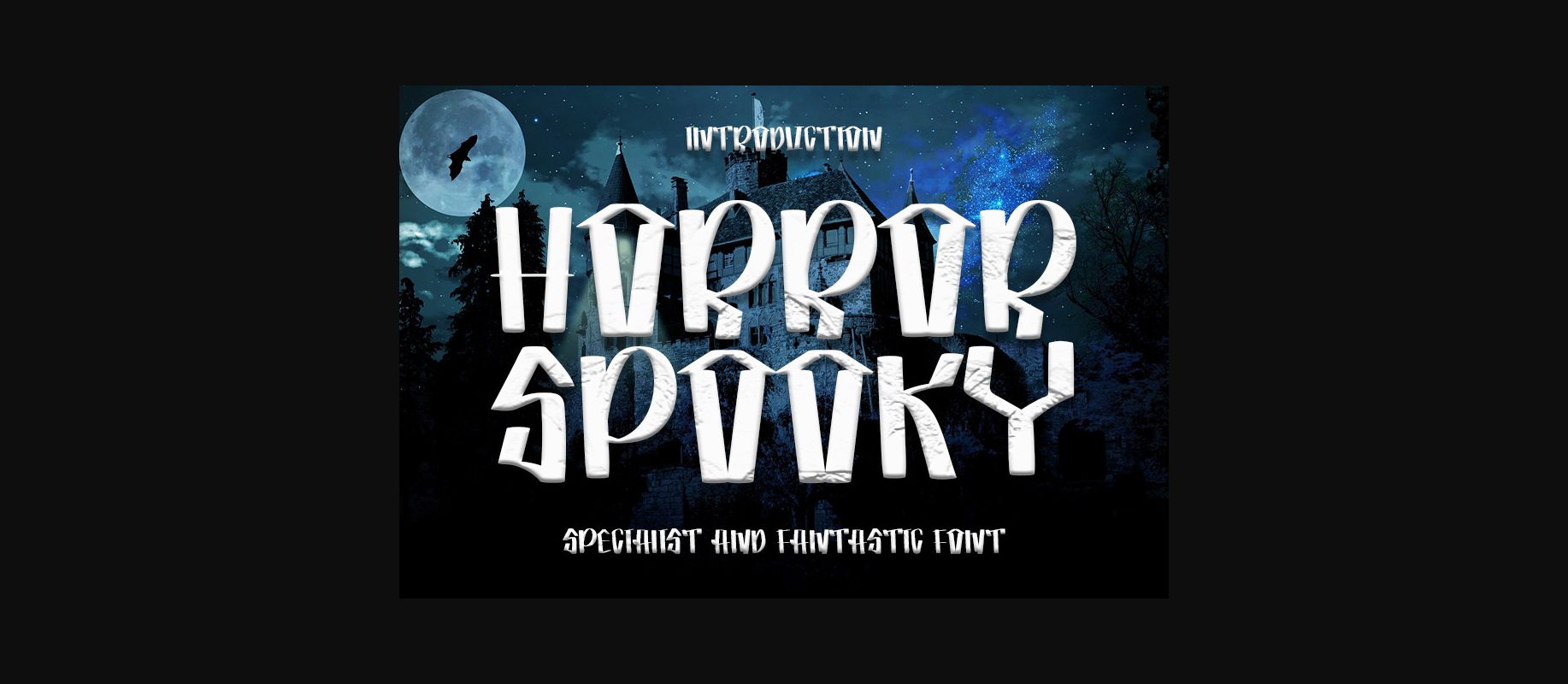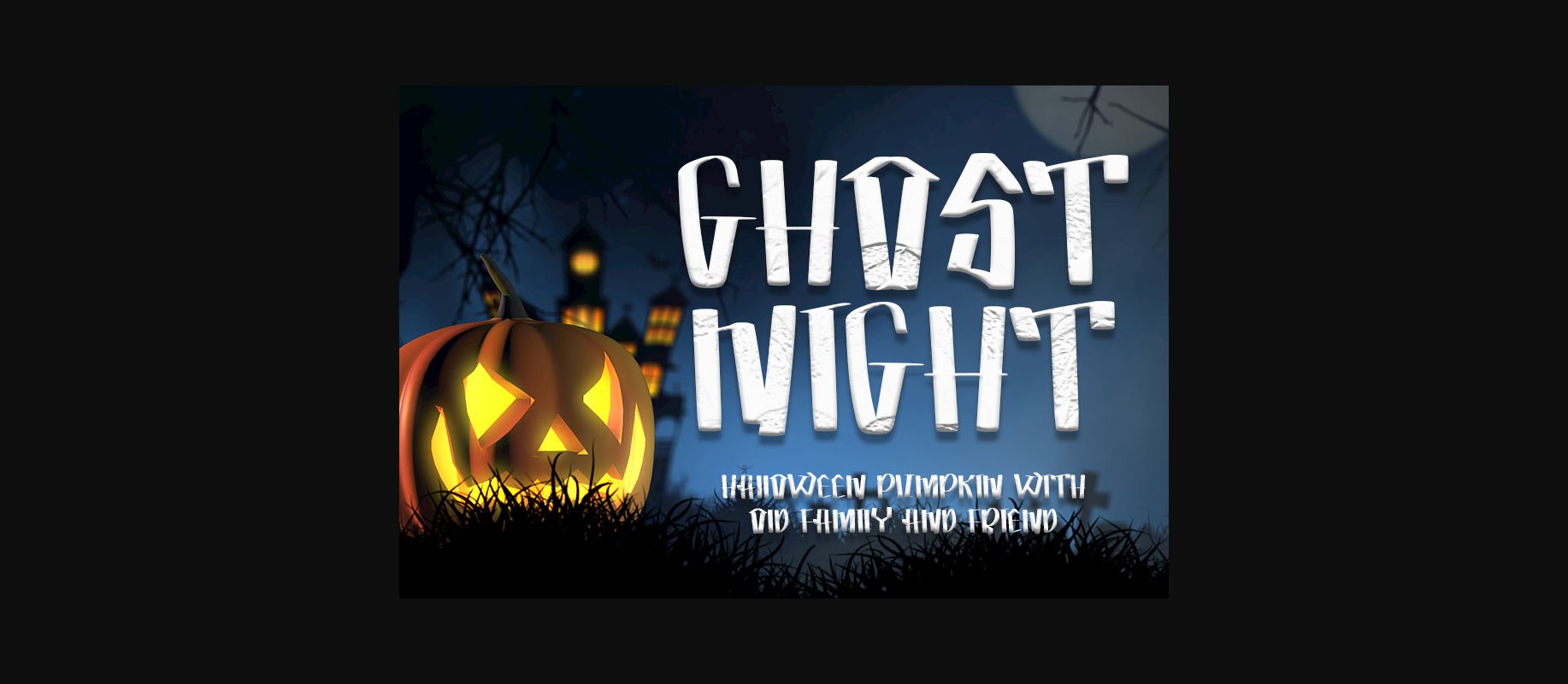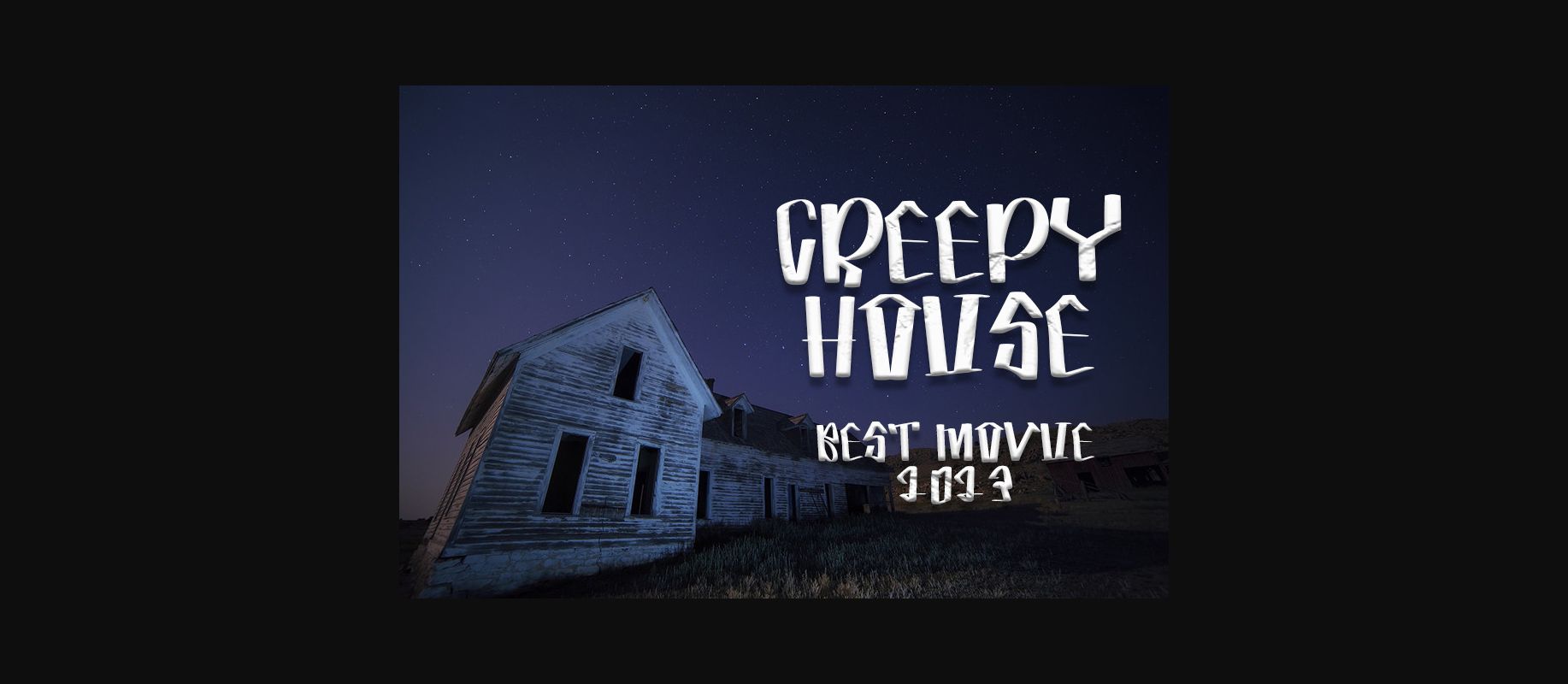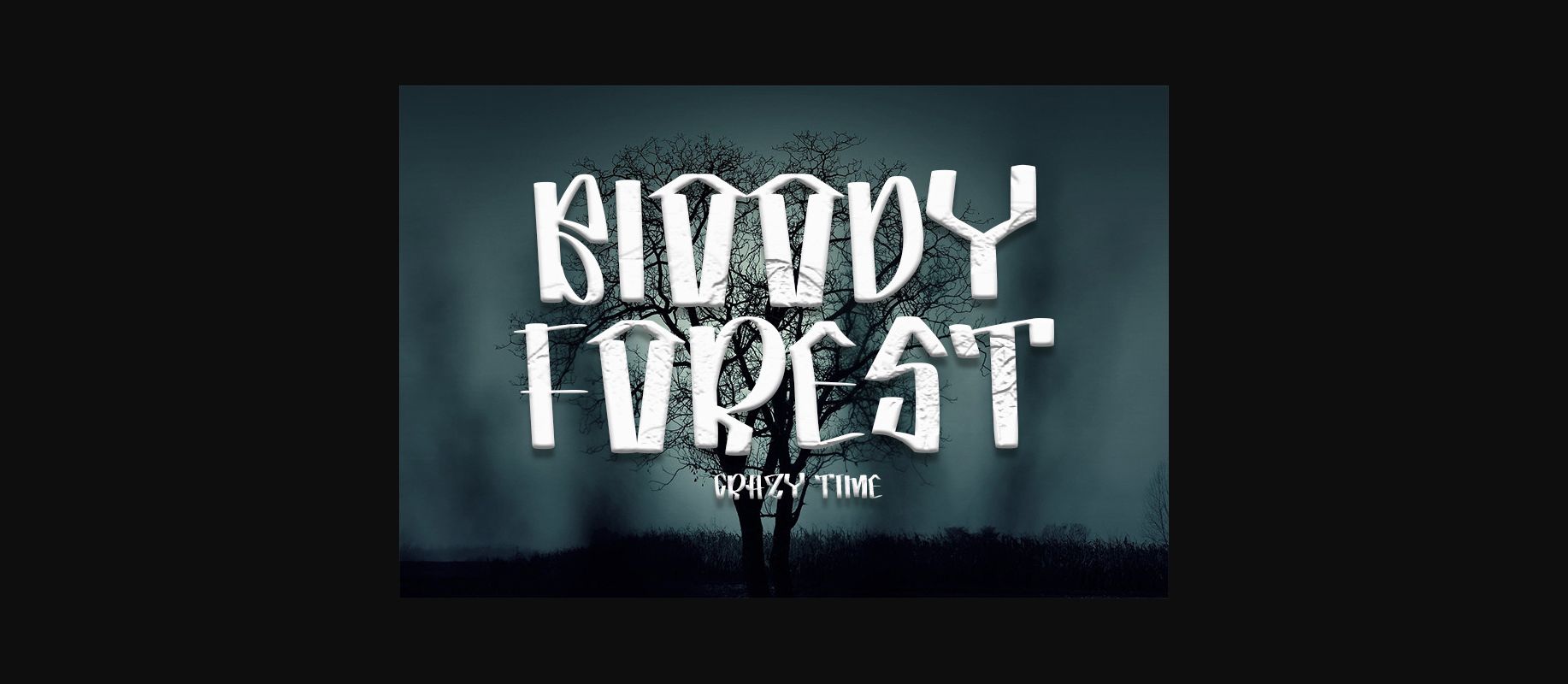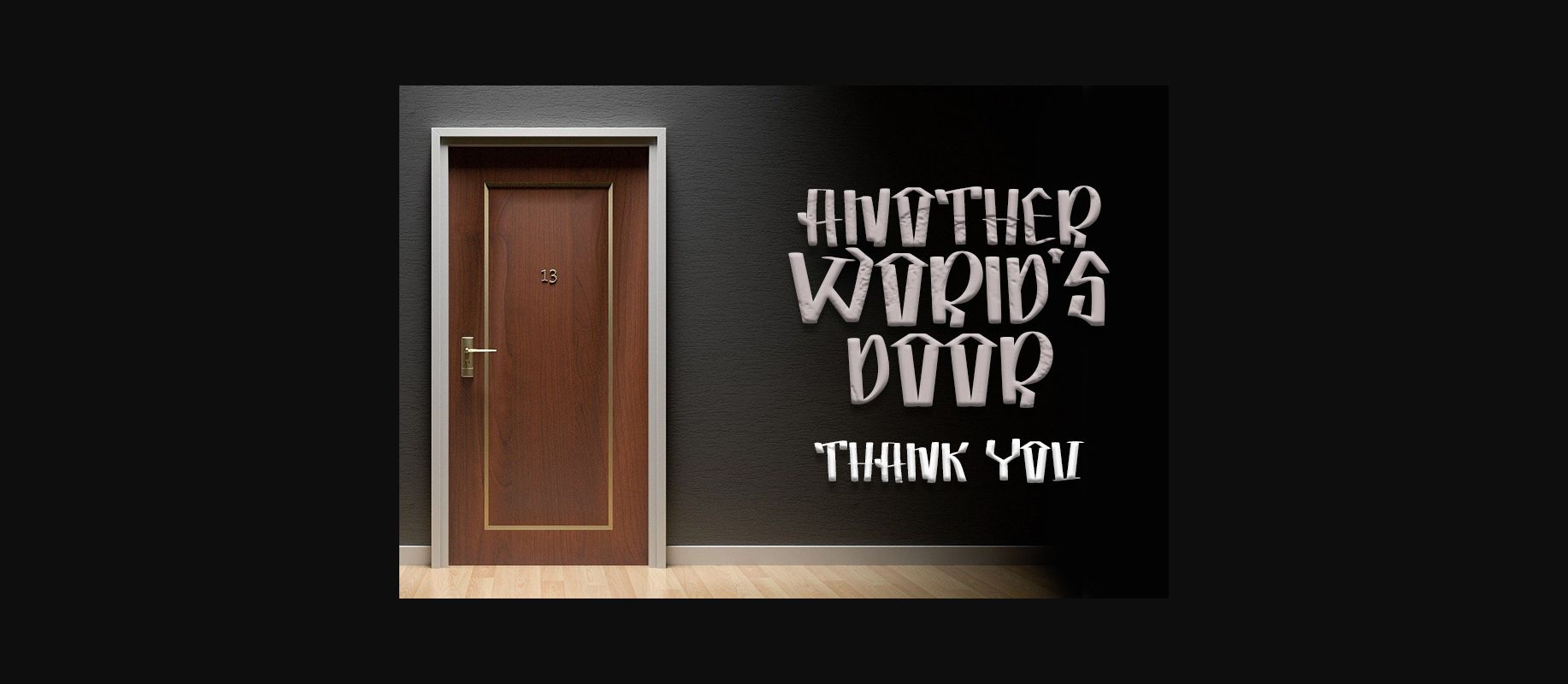
About Horror Spooky Font
Horror Spooky is a playful and unique decorative font featuring bold characters in a Halloween-themed style! It’s great for scary movie covers, magazines, spooky storybooks, and more!